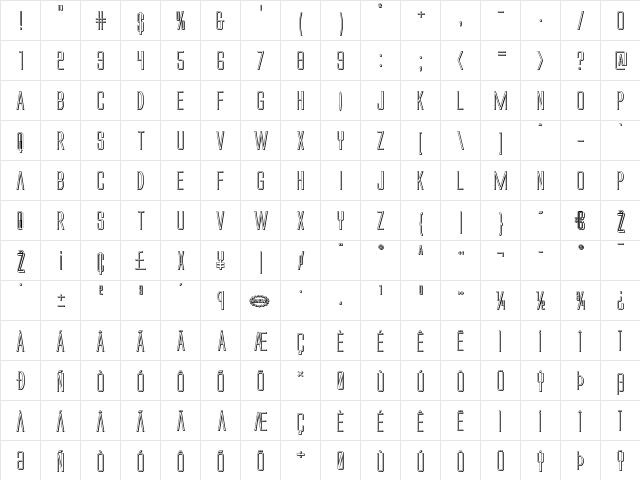
Alien League 3D Regular
Design Context for Alien League 3D Typeface
Alien League 3D offers clean, dependable letterforms without strong stylistic allegiance, making it a practical choice for designers who need flexibility.